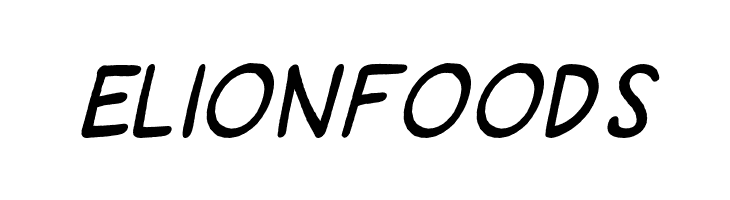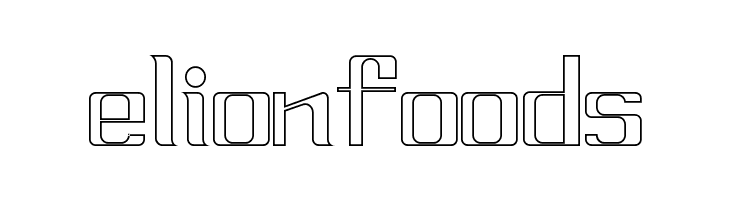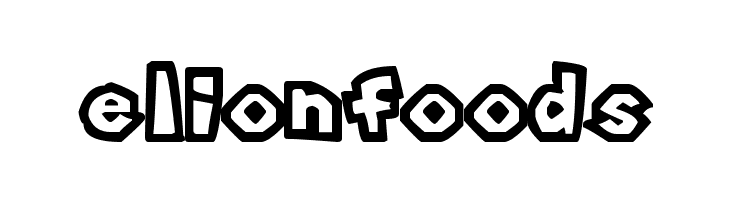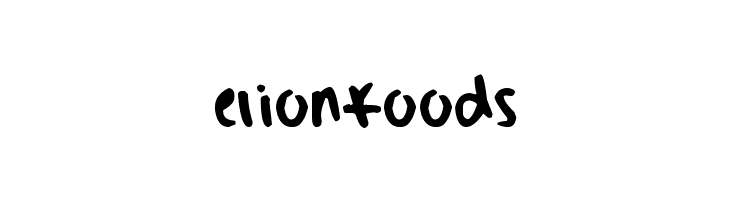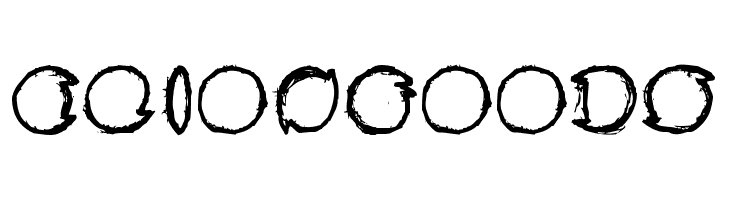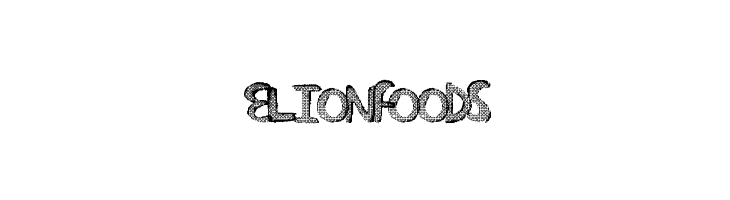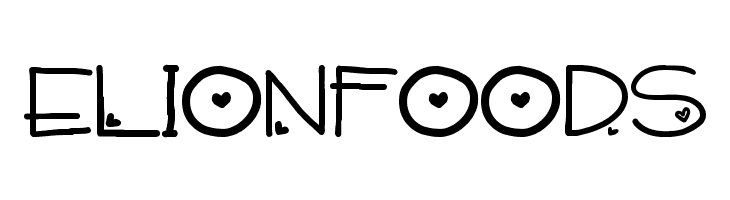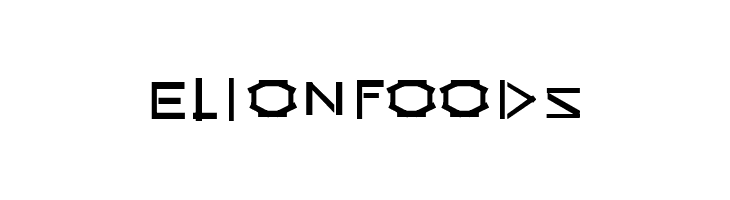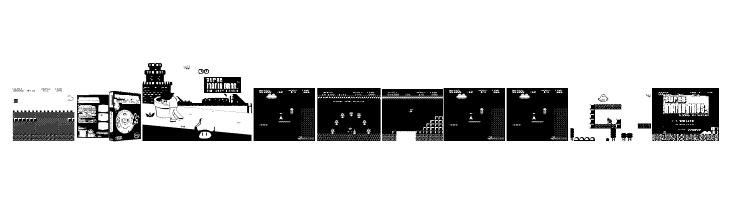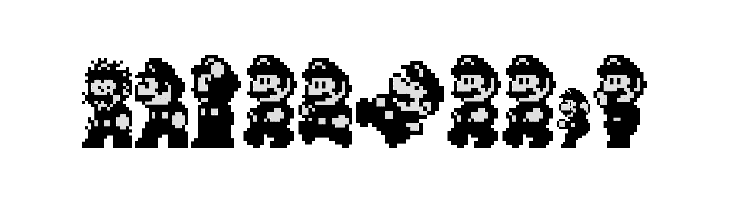
( Fonts by Rodrigo German - RASDESIGN )
A bold, graffiti-inspired font with sharp, angular edges and dynamic style.
( Fonts by Alex Solis )
A bold, cartoonish font with thick outlines and playful character shapes.
( Fonts by Diego Gonzalez )
Retro 8-bit pixel art character sprites.
A bold, futuristic font with geometric shapes and sharp angles.
A bold, futuristic font with sharp angles and geometric shapes.
A bold, cracked texture font with a mosaic-like appearance.
A bold, distressed font with a unique fading effect and hand-drawn style.
( Fonts by PressGang Studios )
A playful, handwritten font with rounded, consistent strokes and a casual feel.
( Fonts by PressGang Studios )
A playful, handwritten-style font with an italic slant.
( Fonts by Hector Suriel )
A bold, handwritten font with dynamic, slanted characters.
( Mahdi Salah )
A bold, rugged font with a hand-drawn, graffiti-like style.
A bold, modern font with strong, uniform strokes and high legibility.
( Woodcutter - woodcutter Manero - www.woodcutter.es )
A decorative icon font featuring sushi and Japanese food illustrations as characters.
A playful, handwritten font with a dynamic, cursive style.
A modern, geometric outlined font with clean lines and sharp angles.
A highly distorted and blurred font with overlapping characters, creating an abstract visual effect.
A modern, elegant script font with flowing, cursive strokes.
( Haksen Letters - Sarwo Edhi Prayitno )
A playful and elegant script font with flowing, interconnected letters.
( jaydegarrow.wix.com/jaydefonts )
A bold, athletic font with a three-dimensional, shadowed effect.
( megan-toy.yolasite.com )
A playful, heart-accented font with a whimsical and friendly style.
( Fonts by Mike Wolf )
A bold, geometric font with intricate, maze-like patterns.
( Hiba Khan )
A futuristic, geometric font with sharp angles and a modern style.
( Lucas Moriceau )
A geometric, angular font with a futuristic and symbolic design.
( Harris Darmawan - artzz90.deviantart.com/ )
A geometric, angular font with tall, narrow letterforms and a modern aesthetic.